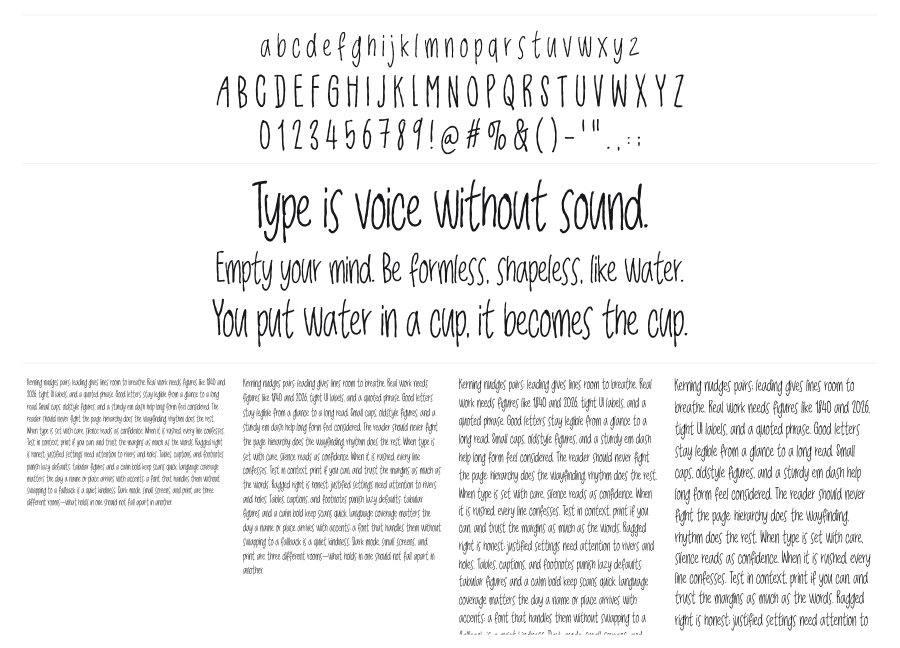
Jackdaws
Jackdaws is a thin, condensed handwritten face from bogstav with a slightly quirky lean to its letterforms, as if someone jotted things down quickly in a narrow margin. The lightweight strokes keep it feeling airy and informal, and the condensed proportions make it surprisingly space-efficient for a casual script. Best for invitations, personal projects, or any context where you want something that reads as genuinely handwritten rather than designed.